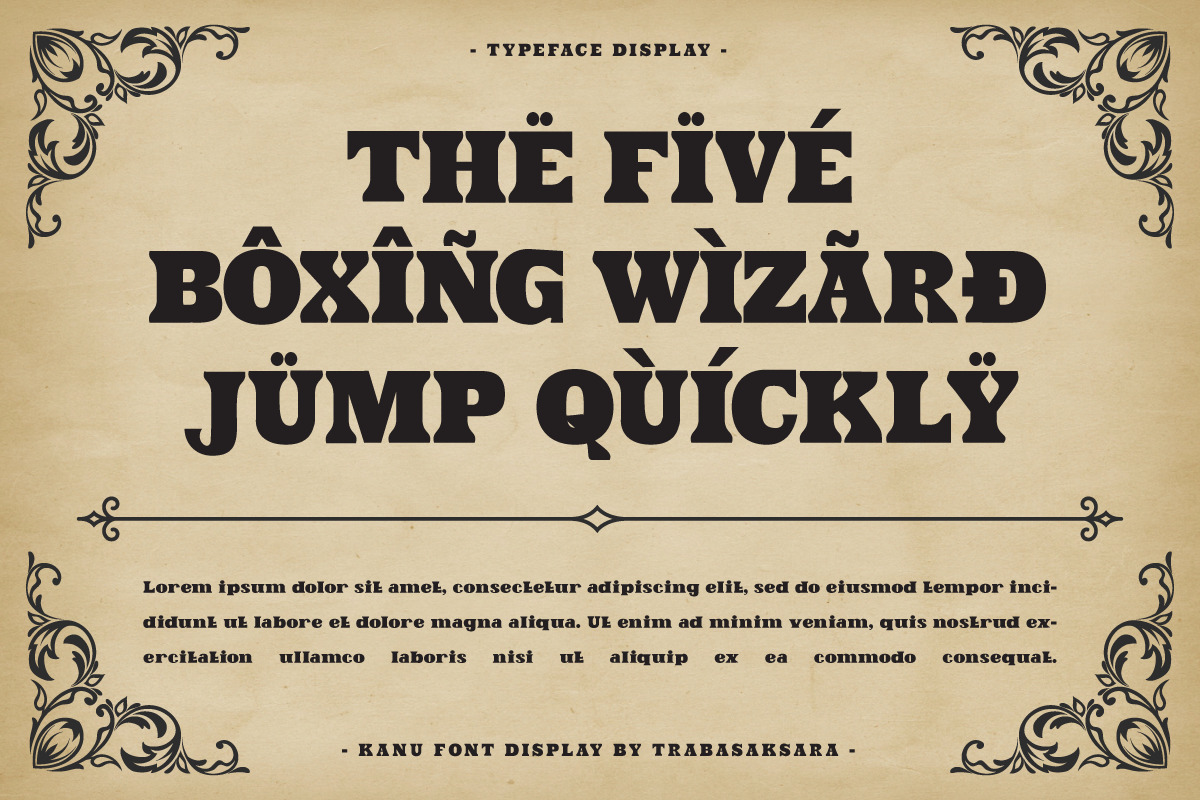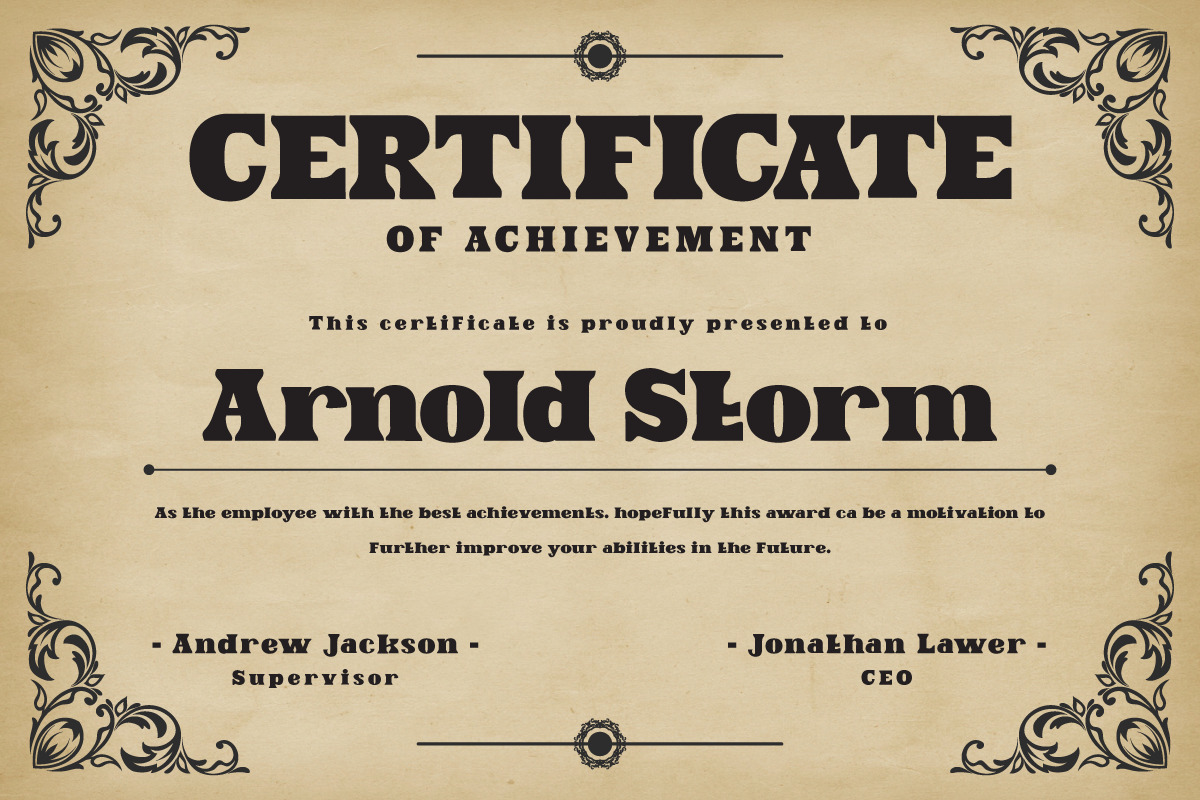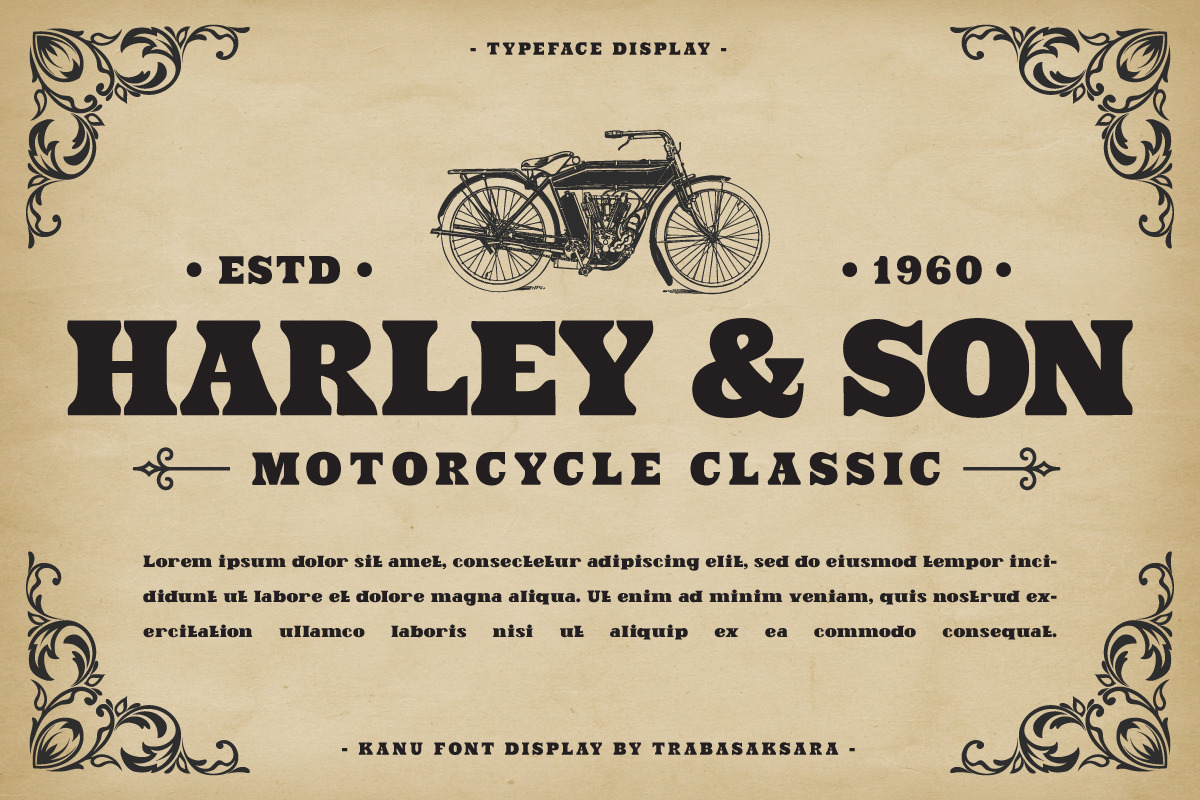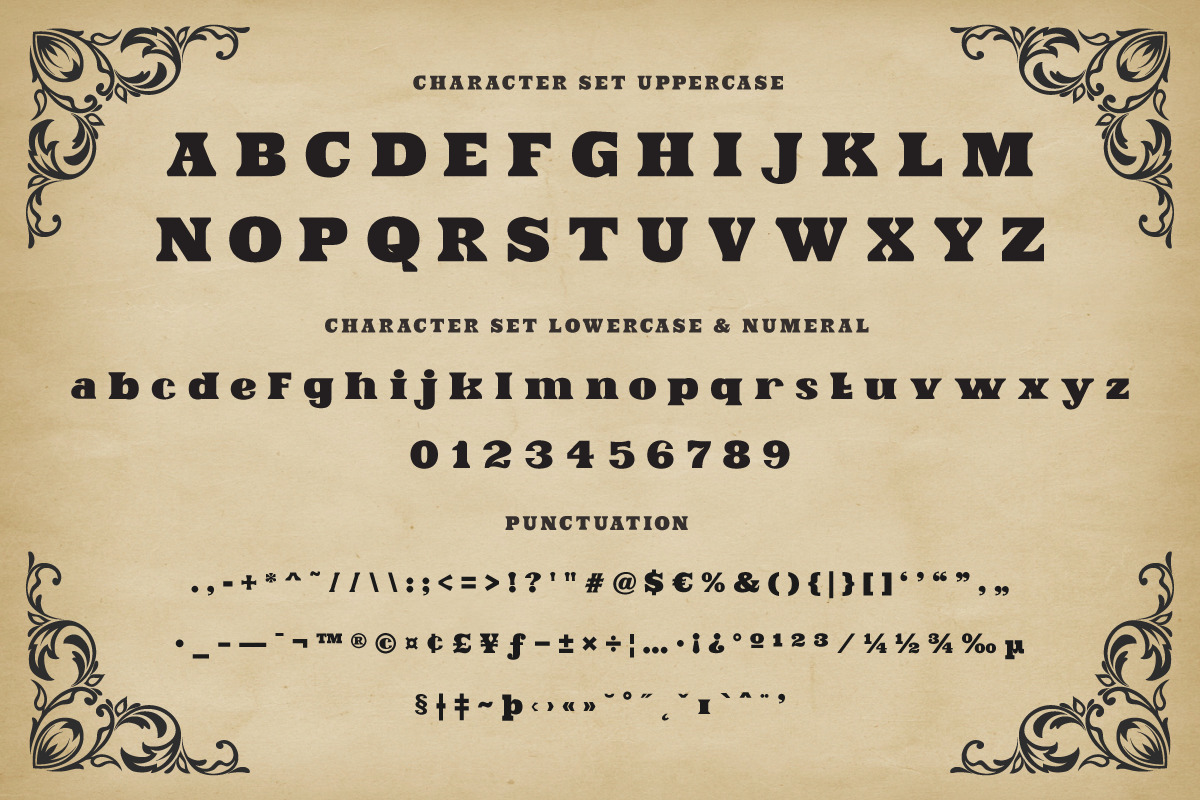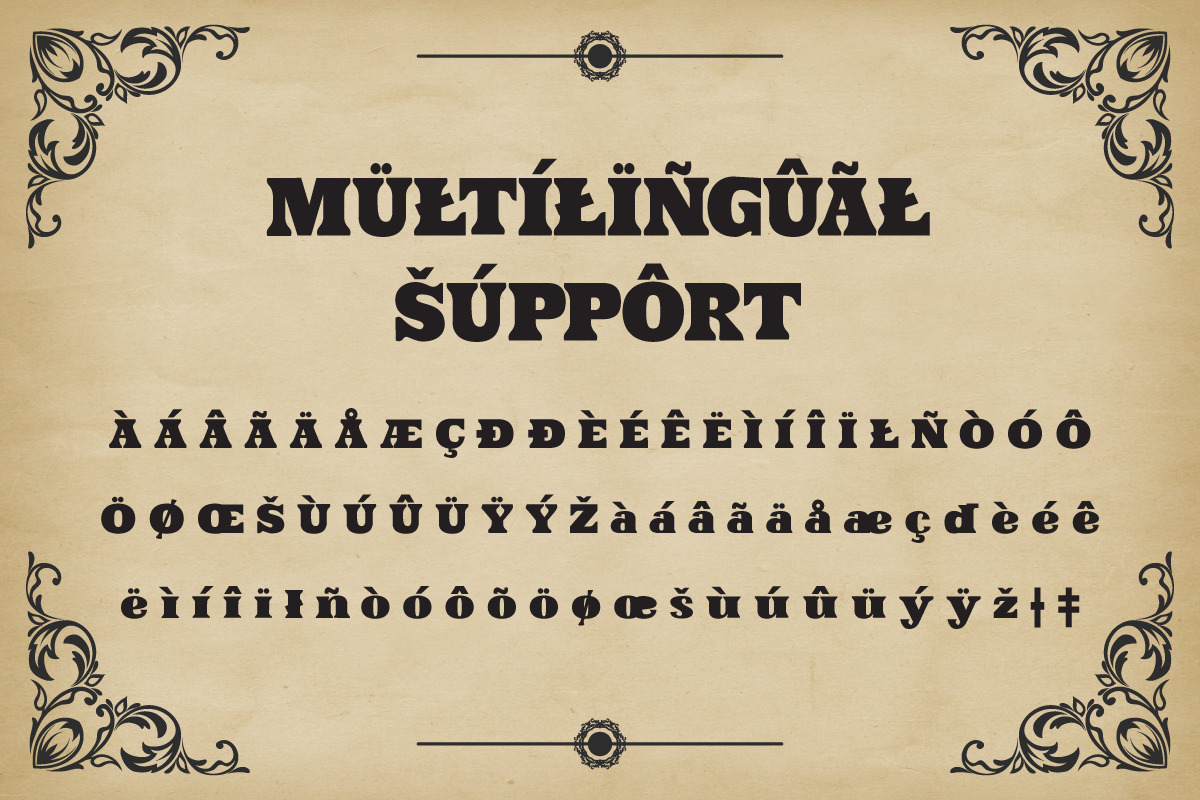
Kanu - Serif Bold Display Font
Introducing Kanu Font - the perfect blend of elegance and versatility.
With its unique and stylish design, Kanu Font is perfect for a wide range of design projects. From logos to web design, Kanu Font is versatile and easy to work with, helping you create beautiful and impactful designs that stand out from the crowd.
Crafted with care and attention to detail, Kanu Font features clean lines, smooth curves, and a range of weights and styles to suit any design need. Whether you're looking for a bold headline font or a delicate script font, Kanu Font has got you covered.
But that's not all - Kanu Font is also highly legible and easy to read, making it ideal for use in body copy and longer text blocks. And with its elegant and sophisticated style, Kanu Font is perfect for designers who want to create a classic and timeless look.